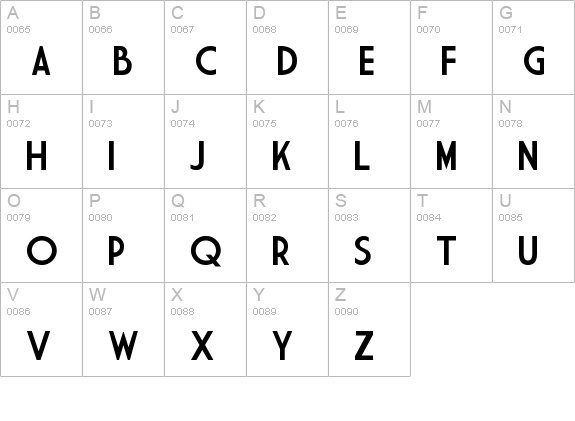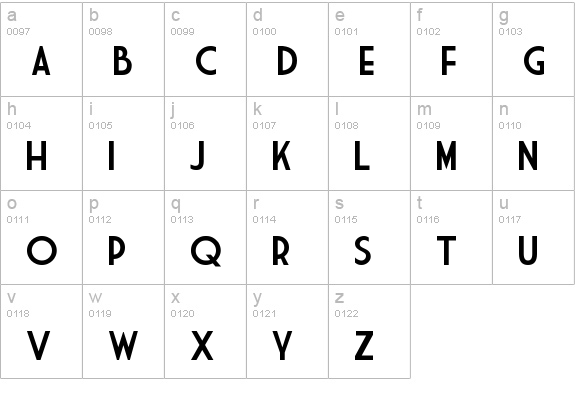
Market Deco is a sleek and stylish display font that exudes elegance and sophistication. With its clean lines and geometric shapes, this font is perfect for creating eye-catching headlines, logos, and branding materials. The Art Deco-inspired design of Market Deco adds a touch of retro charm to any project. The best part? Market Deco is available for free download at FontsMarket.com. Whether you're a designer looking to add a unique flair to your work or a business owner in need of a standout font for your branding, Market Deco is the perfect choice. Embrace the timeless appeal of Art Deco with Market Deco font and make a bold statement with your designs.